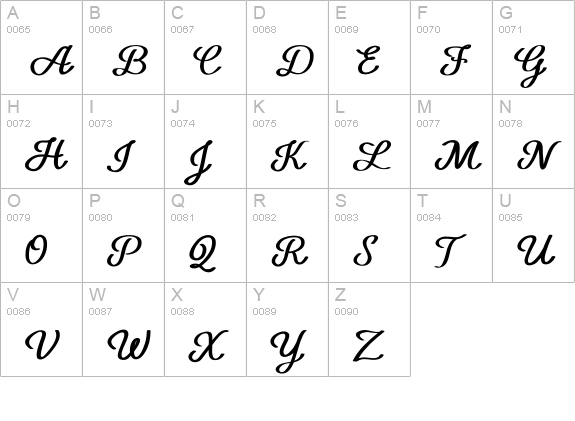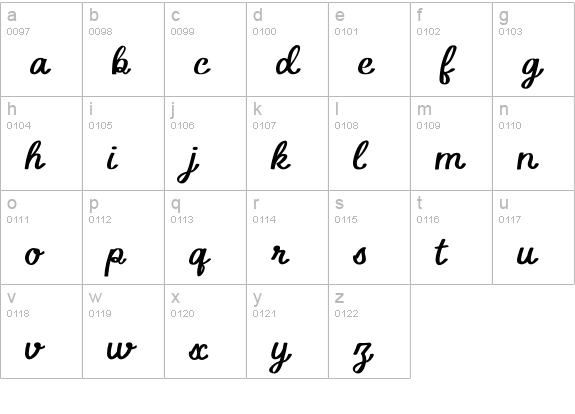
New Wishes Modern Script Font Font Details
New Wishes Modern Script Font is a free for personal use font in the Script > Calligraphy category, designed by Fontles. It has been downloaded 208 times and is available for Windows, Mac and Linux.
Introducing the New Wishes Modern Script Font, a stunning and versatile typeface that will bring a touch of elegance and sophistication to your design projects. This font features smooth and flowing lines, making it perfect for various applications such as branding, invitations, social media graphics, and more.
With its stylish and contemporary appearance, the New Wishes Modern Script Font is sure to make a lasting impression on your audience. Whether you're creating wedding invitations, product packaging, or logo designs, this font will add a touch of modernity and class to your work.